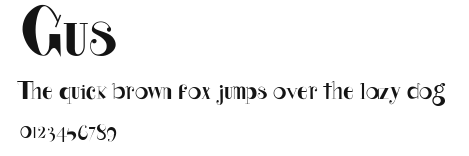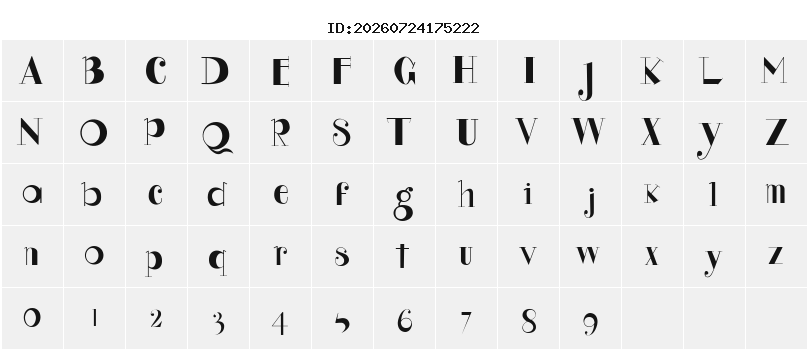
• Font Name: Gus
• Manufacturer: Fernanda Luna
About Gus.ttf
Gus.ttf is a modern, elegant sans-serif font designed for ultimate readability and visual harmony. Perfect for branding, headlines, web design, and print materials.